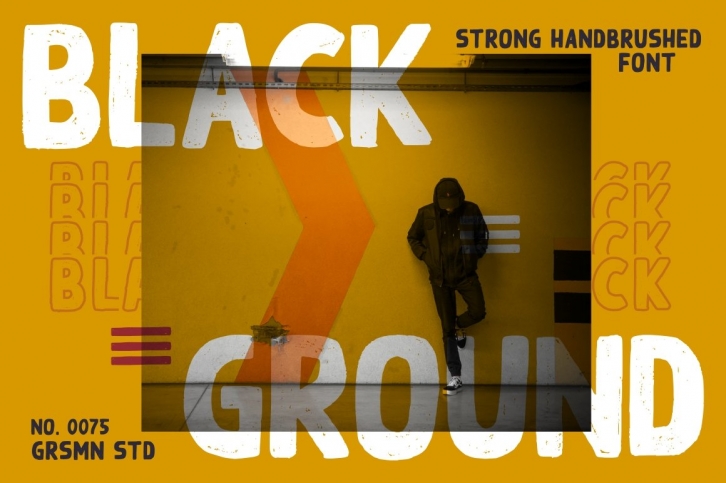
Introducing BLACK GROUND - Display Font
BLACK GROUND made with a fresh urban edge; delivering a stylish script which is guaranteed to add an eye-catching appeal to your logo designs, brand imagery, quotes, product packaging, merchandise & social media posts
- All Caps letters
- Numbers & Punctuation